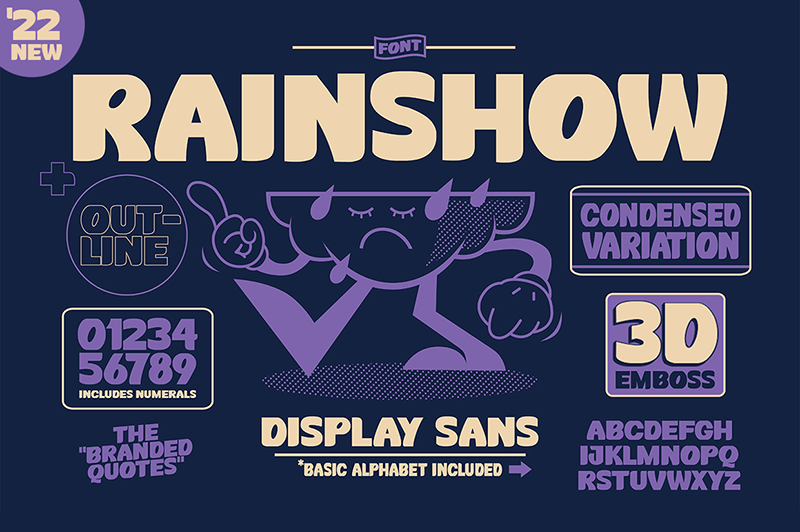
Font name: | Rainshow |
Author: | The Branded Quotes |
Free for Personal Use. For Commercial Use, purchase the font here: https://thebrandedquotes.sellfy.store/p/rainshow-display-sans-illustrations/ About this font: Rainshow Sans is a dynamic display font ready to be paired with your logo and design. It has four different variations to accommodate every project you are working. Contains: Rainshow Regular Rainshow Condensed Rainshow Emboss Rainshow Outline Download Includes(Purchased Version): 4 OTF versions High Quality Illustrations Thanks for looking! |